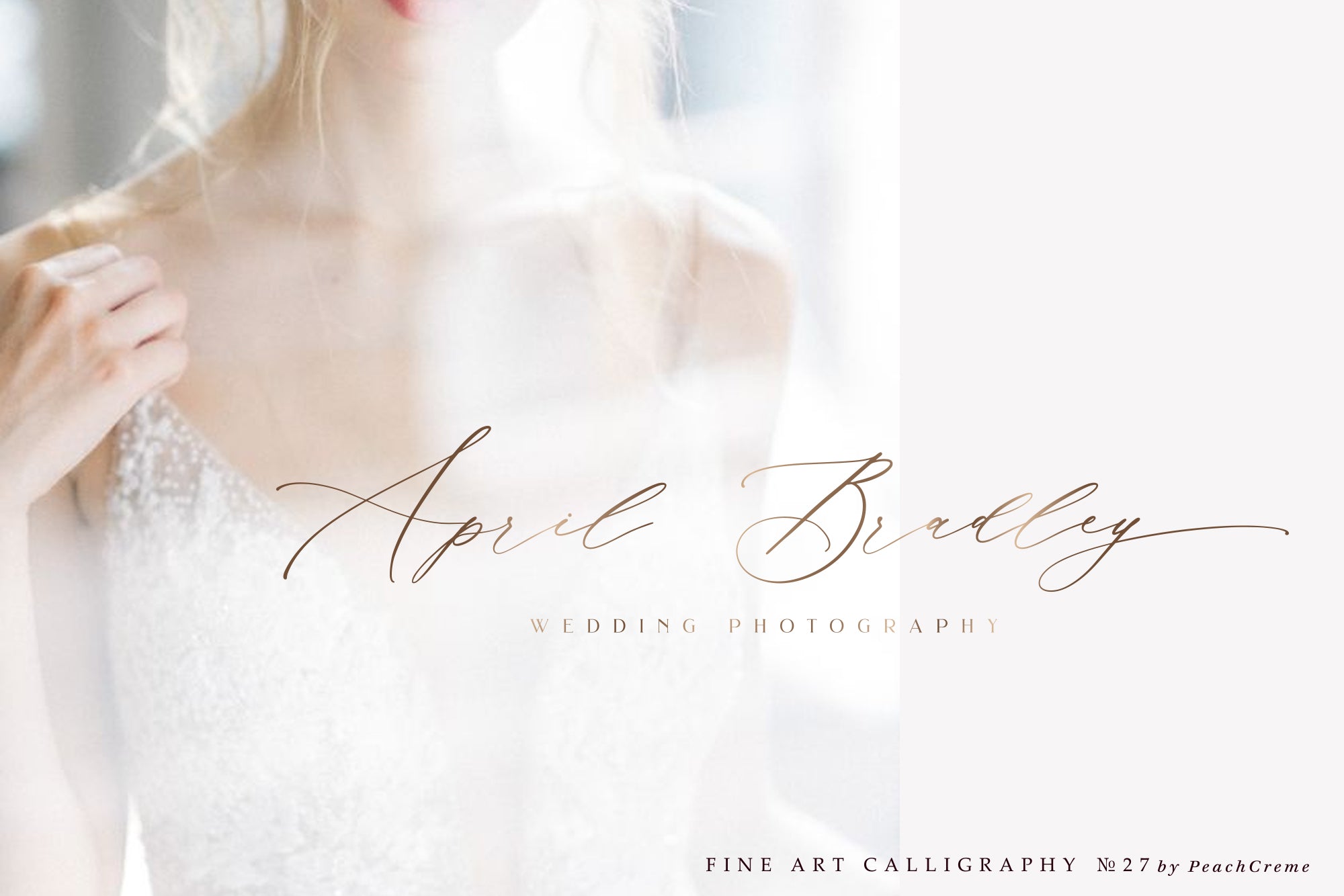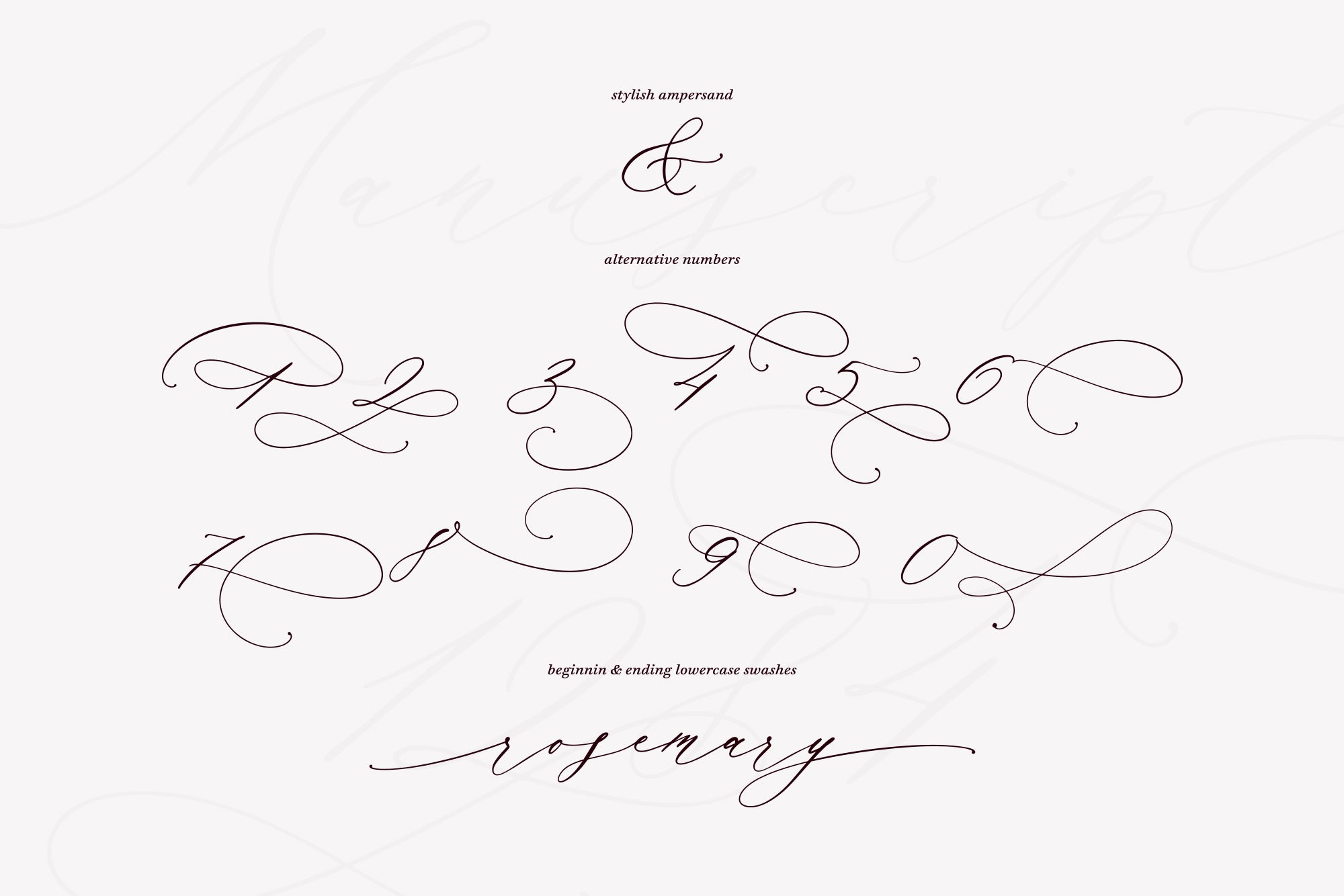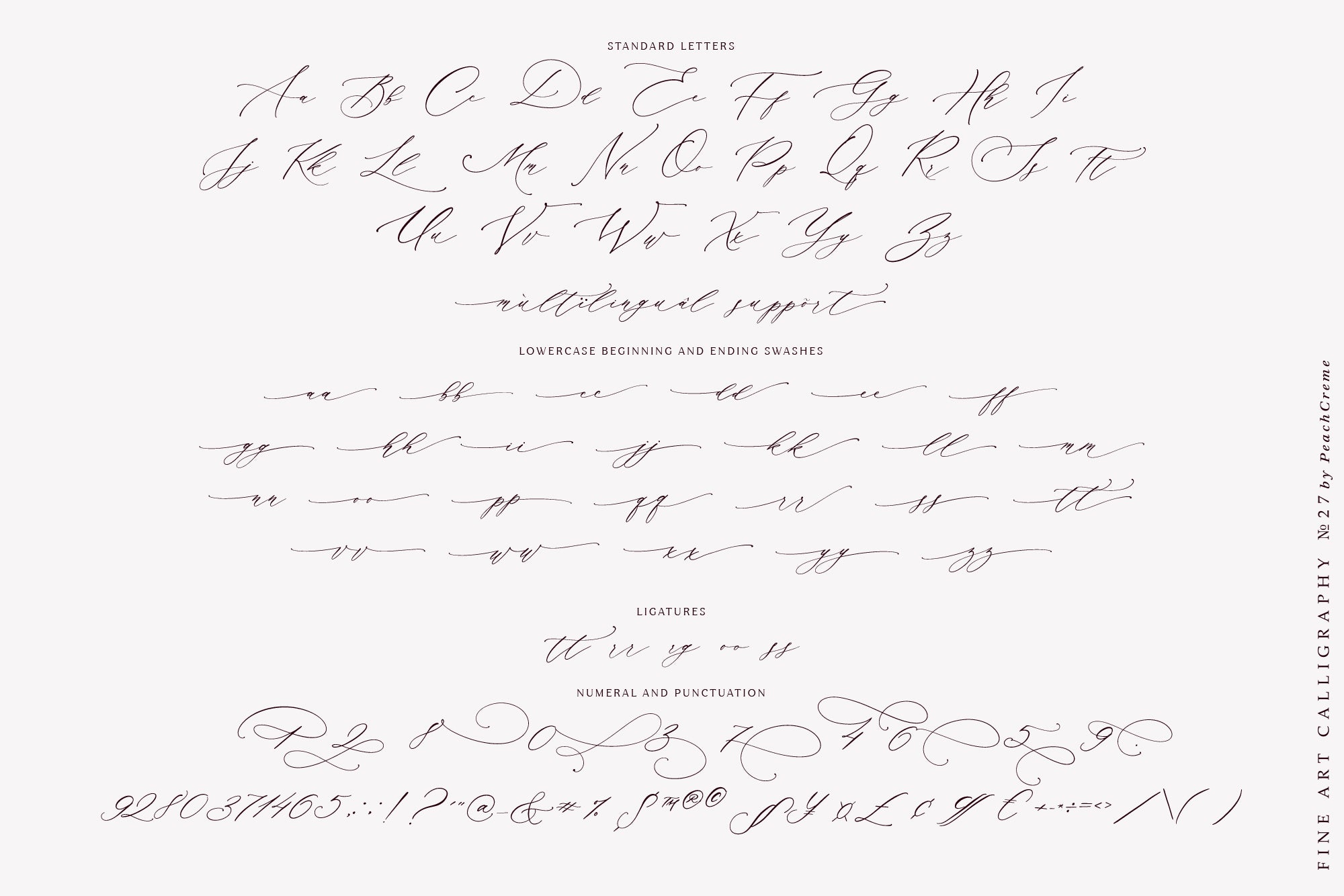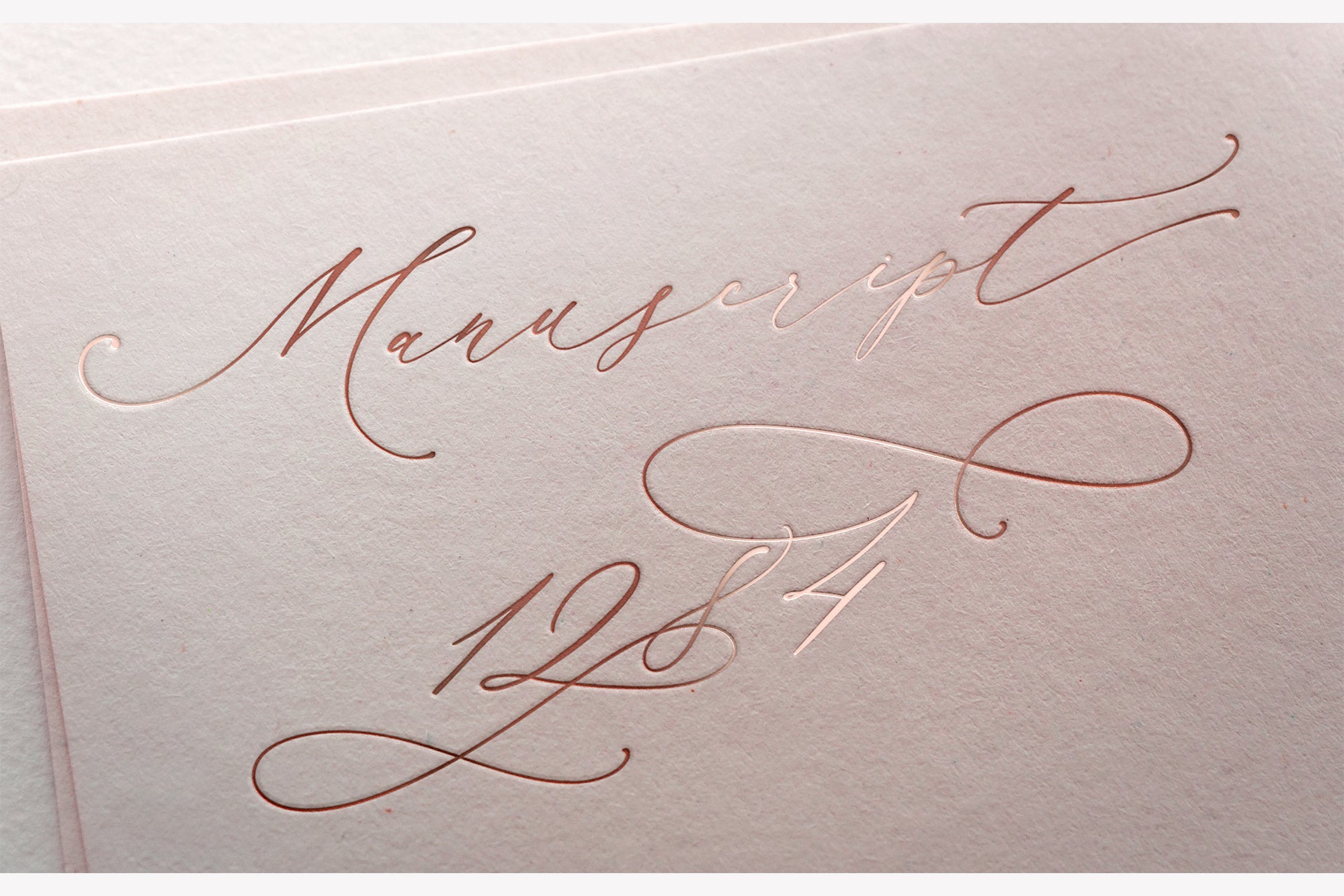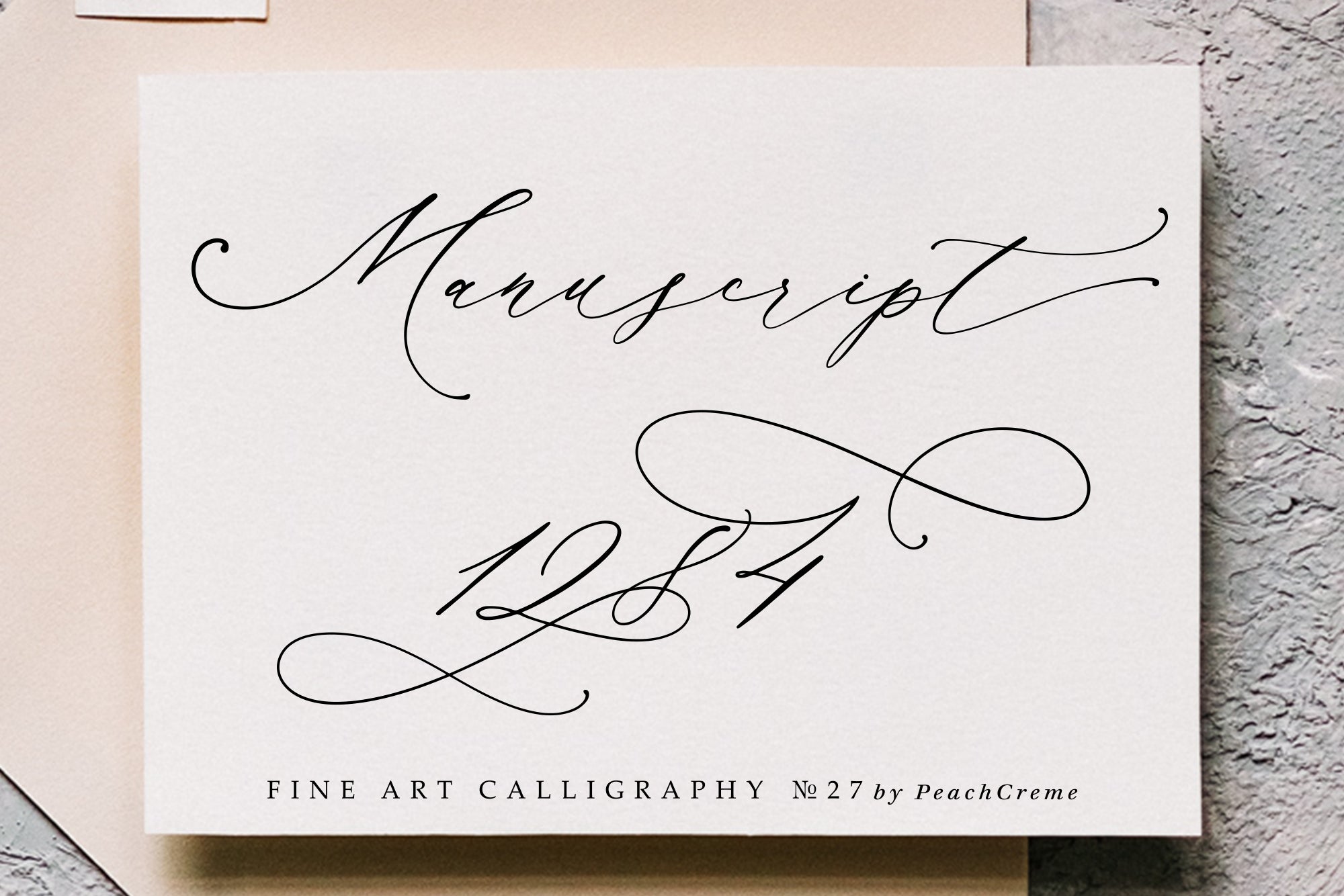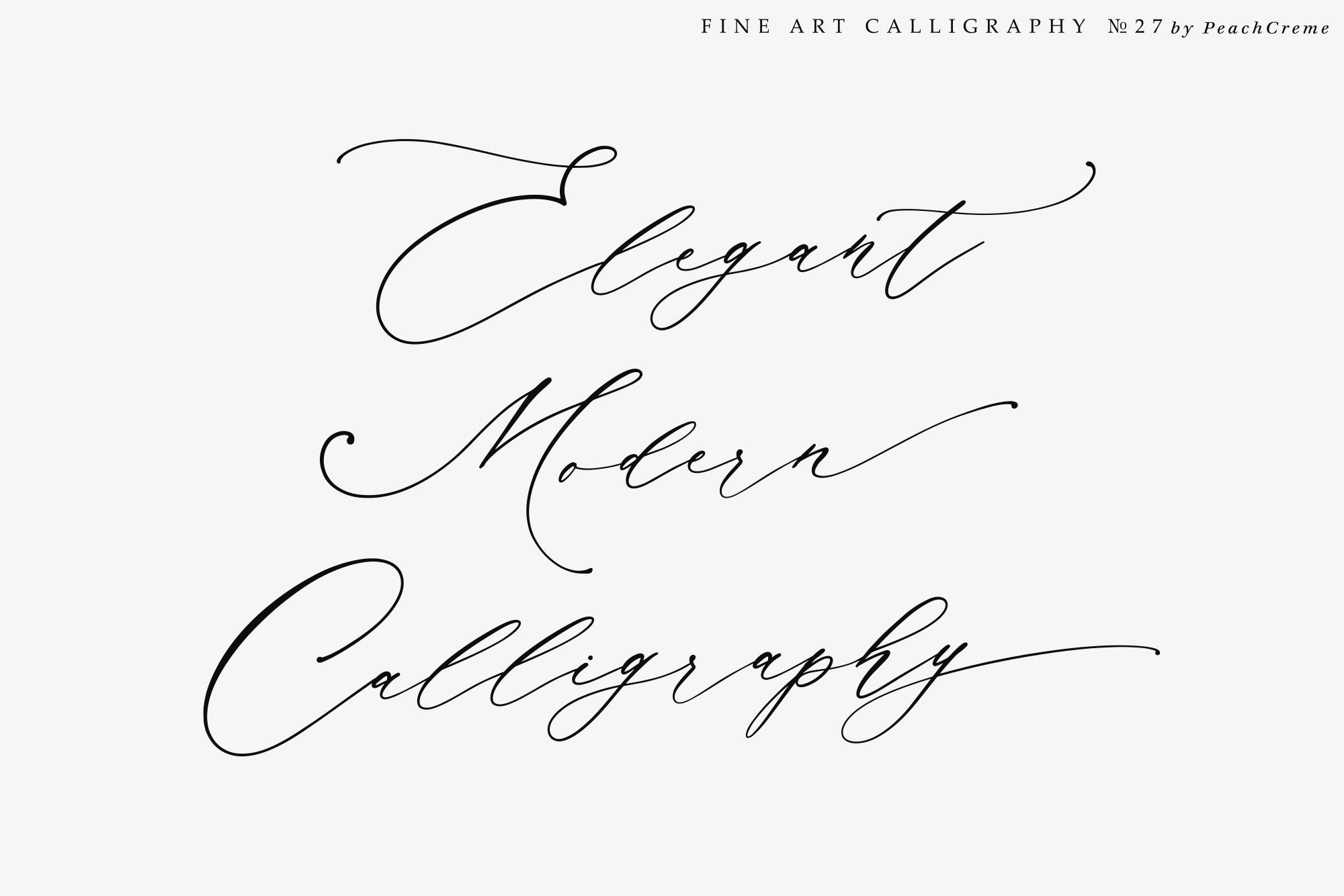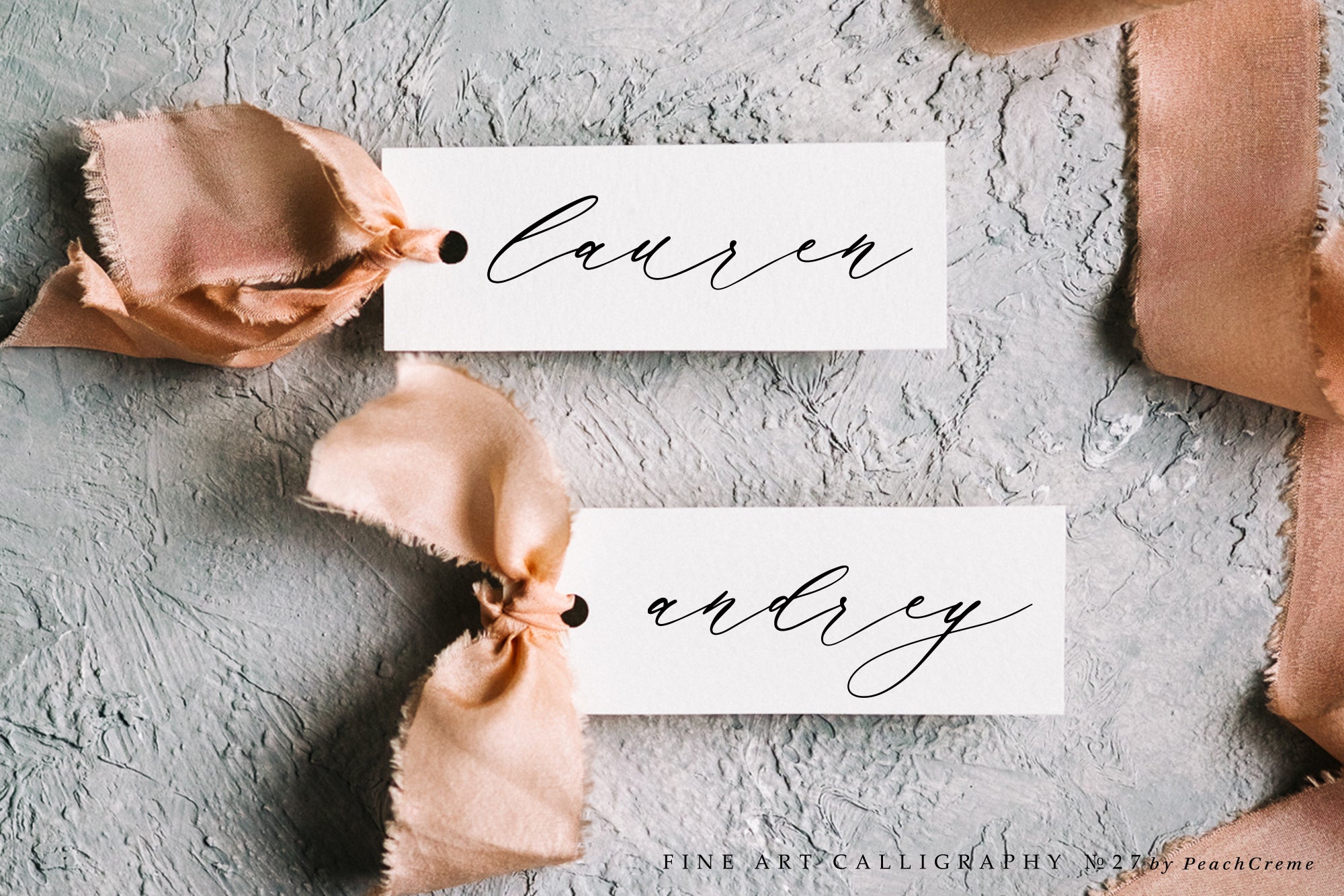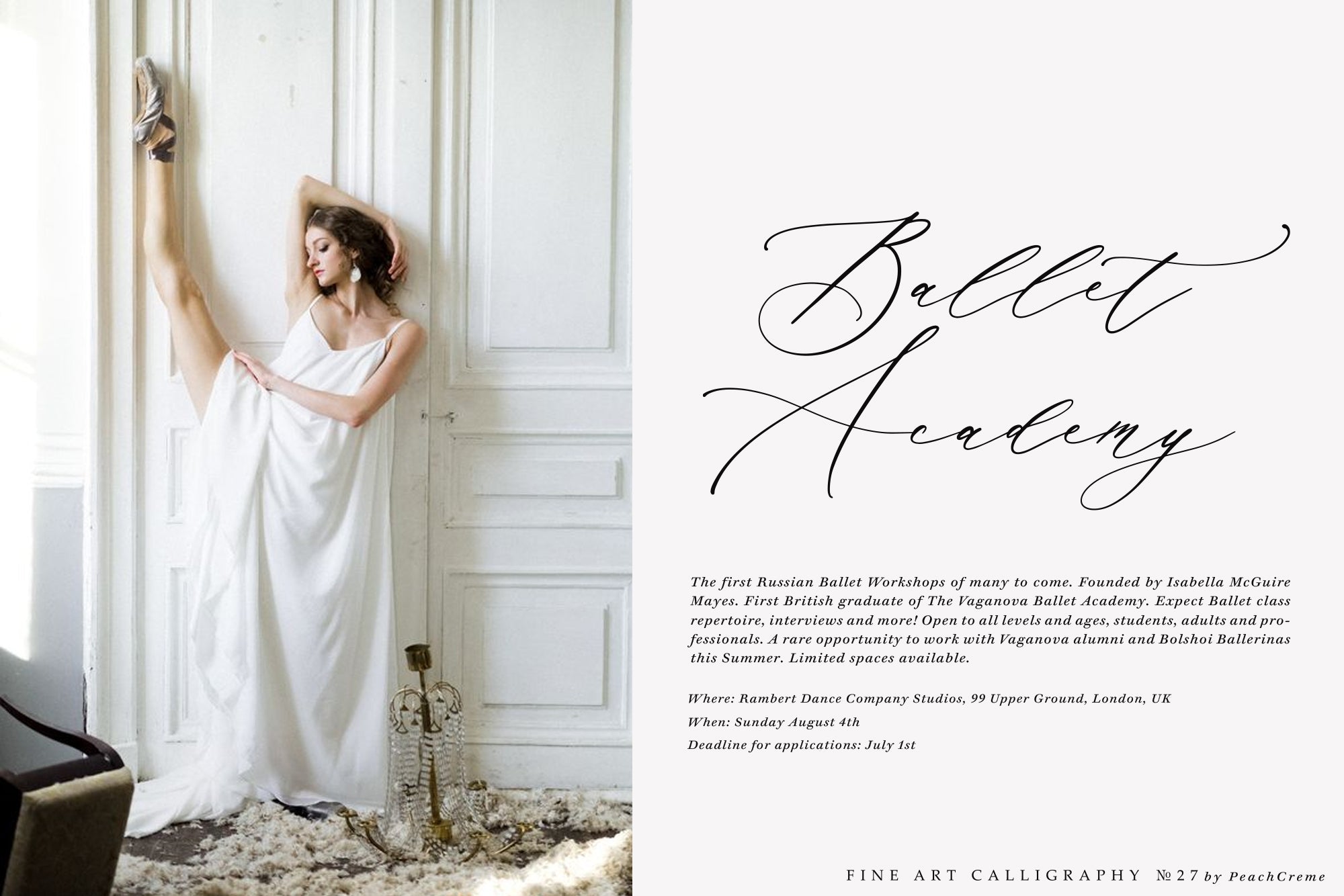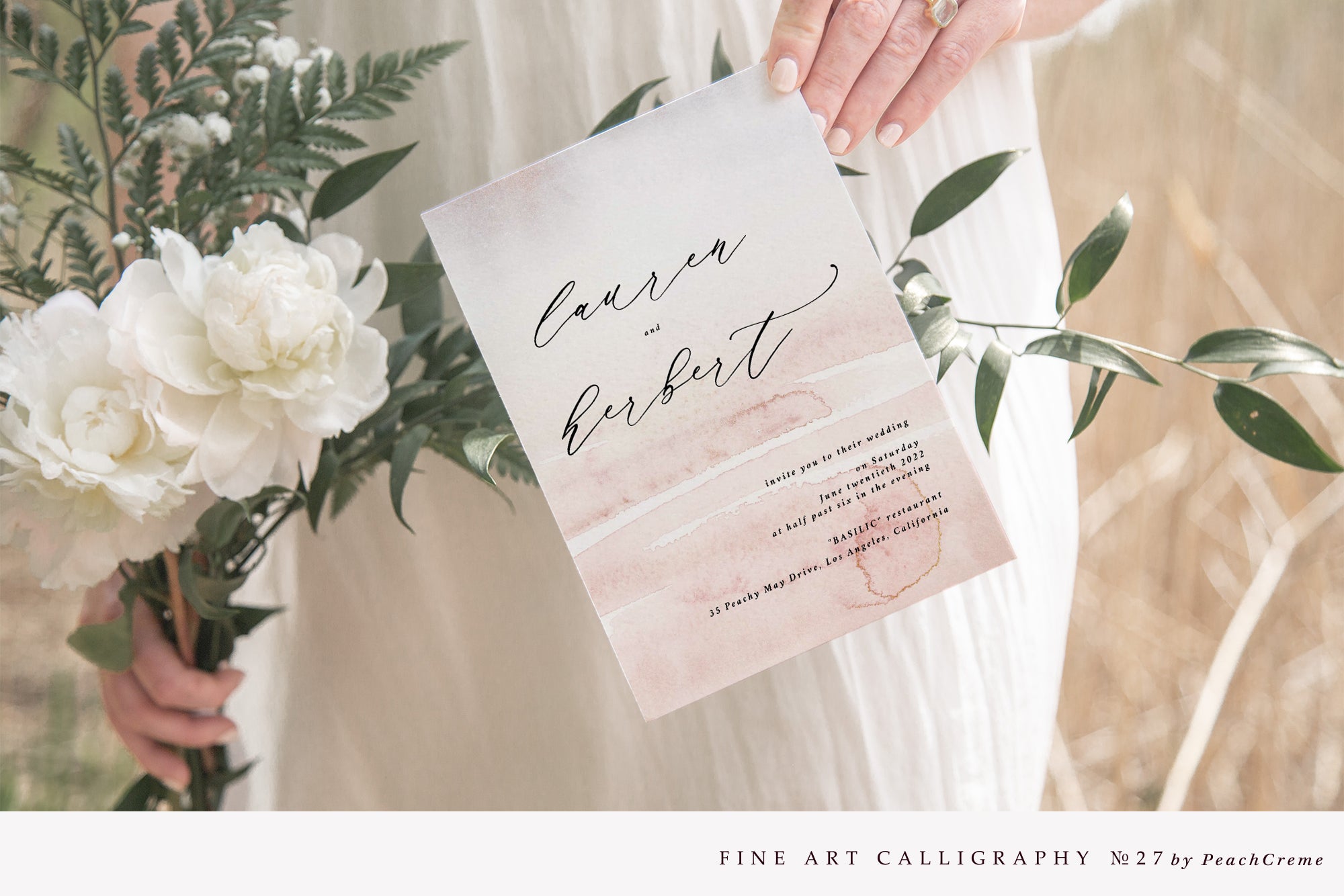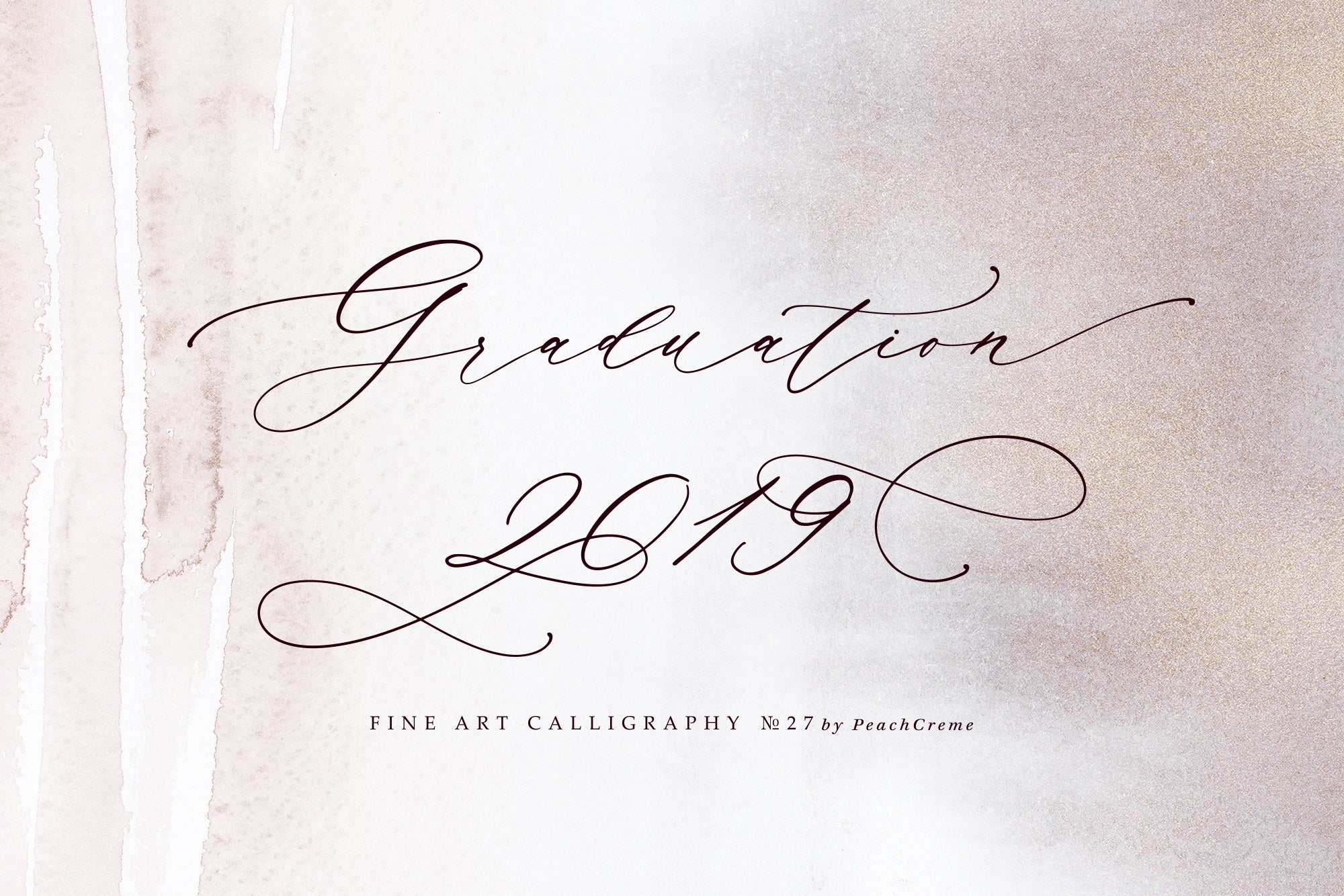
Manuscript 1284 Script
**Manuscript 1284 ** is a crème de la crème modern calligraphy font with contemporary, sophisticated accents. It is perfect for branding, wedding invites and cards, and maybe for a red wine label.
**Manuscript 1284 ** includes a full set of gorgeous uppercase and lowercase letters, numerals, a large range of punctuation and ligatures. All lowercase letters include beginning and ending swashes, giving realistic hand-lettered style. Also all numbers have alternative styles with charming flows.